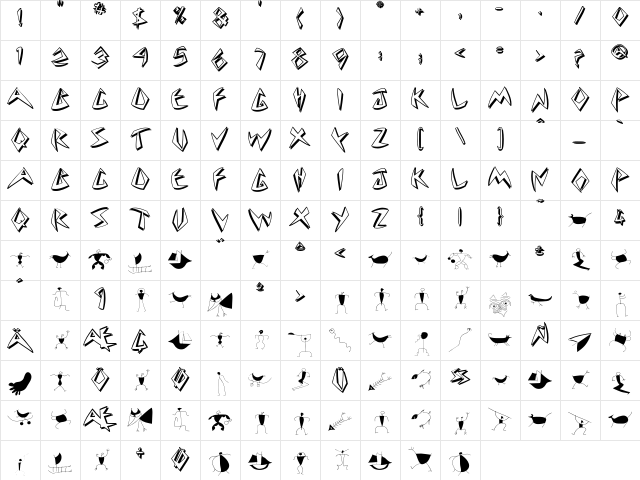
Cuneate Regular Free Font
Cuneate Regular
Design Context for Cuneate
Cuneate is a composed and adaptable typeface that performs quietly and consistently across a wide range of design contexts.